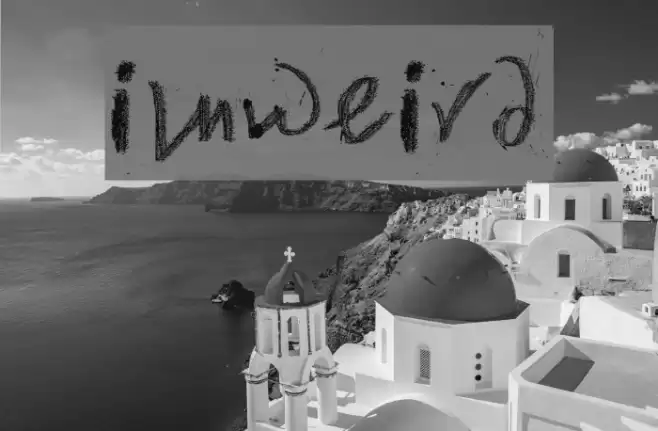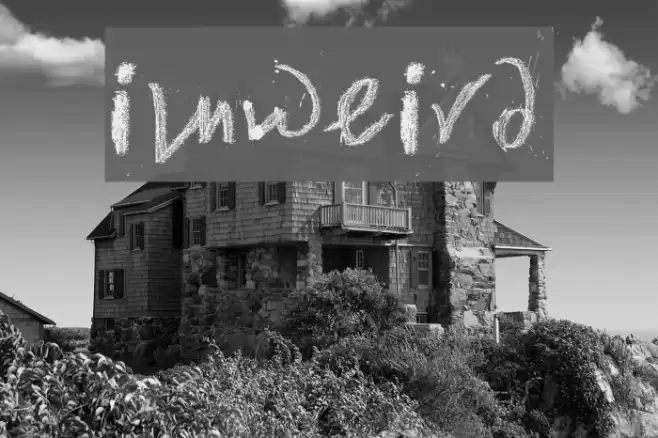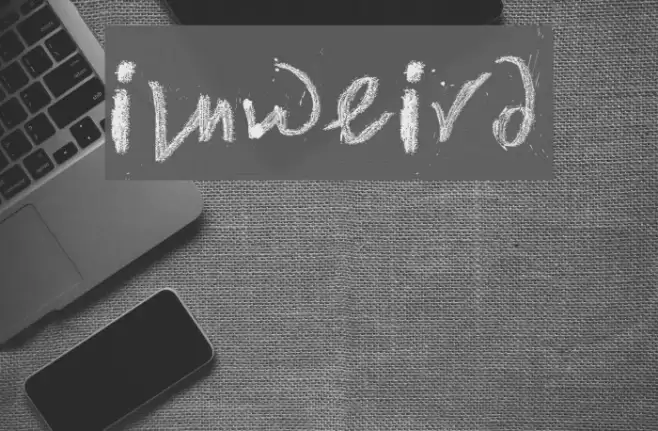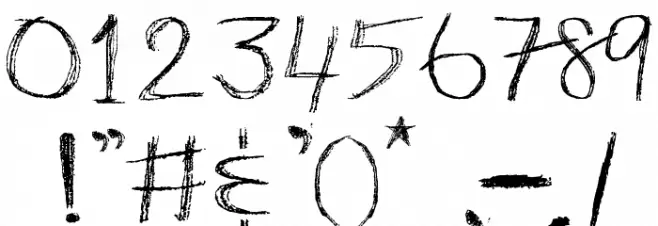
imWeird Font
imWeird Description
This font exhibits a unique, hand-drawn style with a rough, textured appearance that mimics the look of charcoal or crayon. The letters are irregular and slightly tilted, giving it a casual and artistic feel. The uppercase and lowercase letters maintain a consistent style, with some characters featuring exaggerated loops and curves, adding to its whimsical nature. The numerals and special characters follow the same design principles, ensuring a cohesive look across all elements. This font's distinctiveness makes it stand out, offering a playful yet sophisticated aesthetic.
A hand-drawn, textured font with a whimsical and artistic style from Uncategorized fonts.
- Proposed Projects: Ideal for creative projects such as art posters, children's book illustrations, and playful branding materials.
- Overall Style: Artistic
- Use Case: Logos, Posters, Creative projects